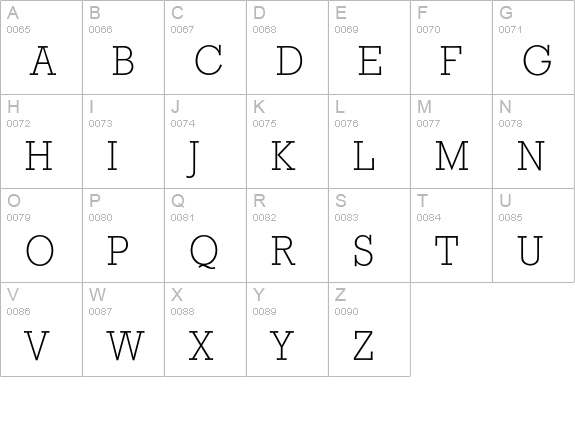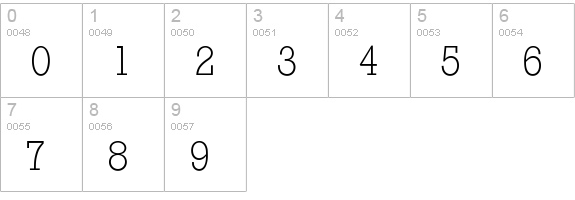
Stafford-Xlight is a stunningly elegant and sophisticated font that exudes a sense of timeless beauty. Its delicate, slender strokes and graceful curves make it the perfect choice for projects that require a touch of refinement and sophistication. With its light and airy appearance, Stafford-Xlight adds a touch of elegance to any design. Whether you're creating wedding invitations, branding materials, or editorial layouts, this font is sure to captivate your audience and leave a lasting impression. One of the best features of Stafford-Xlight is that it is available for free! Yes, you heard that right. This exquisite font can be downloaded for free at FontsMarket.com. So, not only does it offer unparalleled beauty, but it is also incredibly accessible to designers and creatives who are looking for a high-quality font without breaking the bank. Furthermore, Stafford-Xlight is incredibly versatile, making it suitable for a wide range of design projects. Its clean and legible appearance ensures that it can be easily read in both large and small sizes, making it perfect for headlines, body text, and everything in between. If you're looking to elevate your designs and add a touch of sophistication, look no further than Stafford-Xlight. Download it for free at FontsMarket.com and unleash your creativity with this exquisite and freely available font.